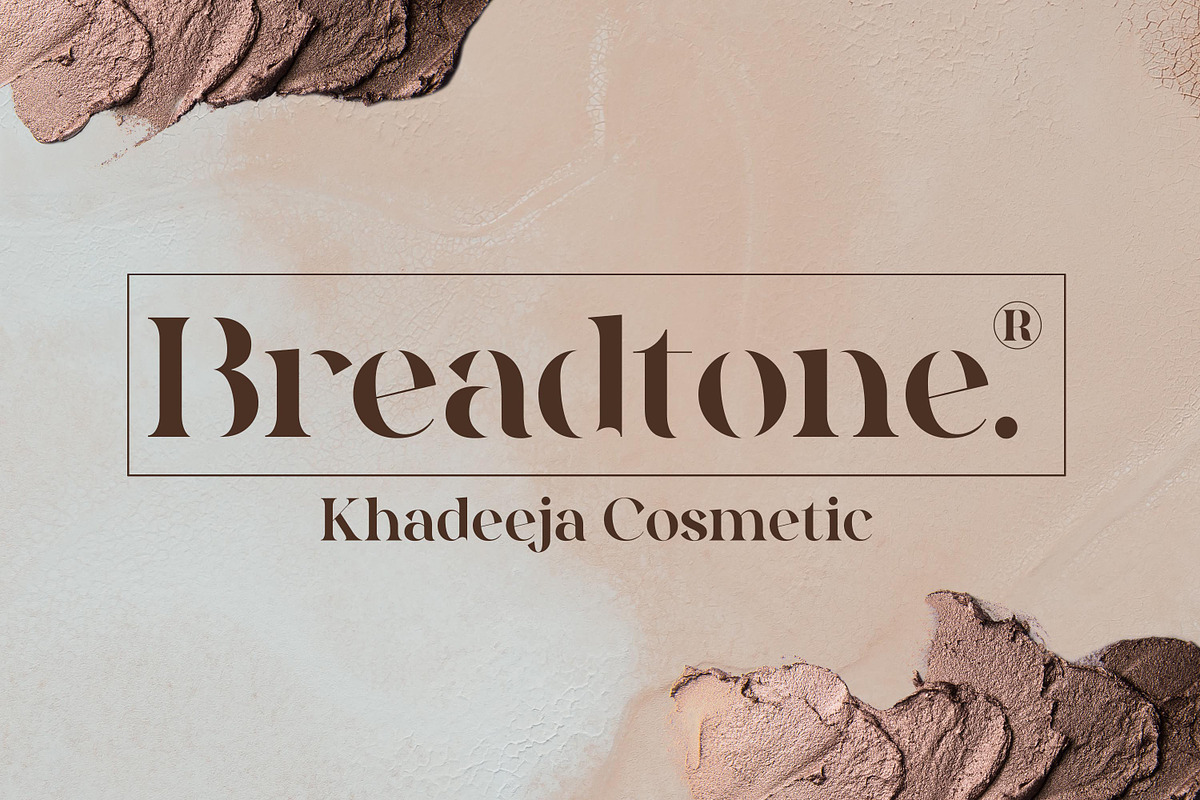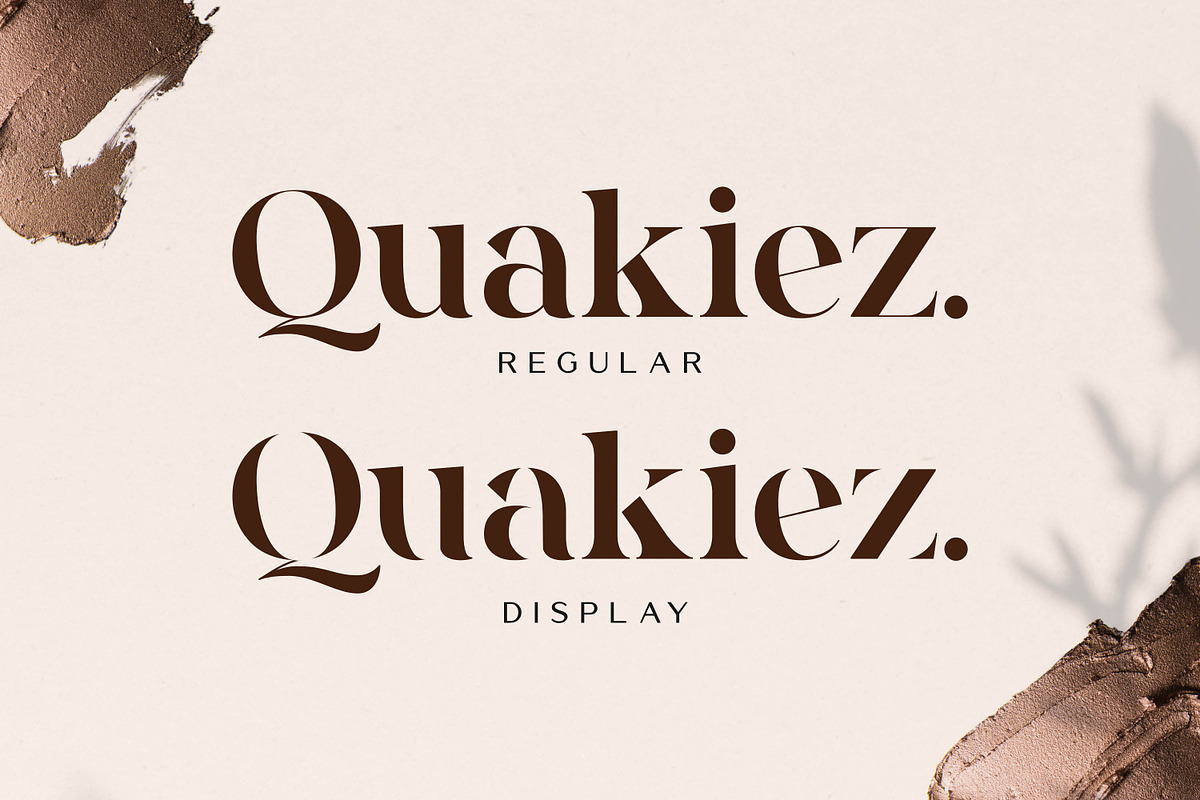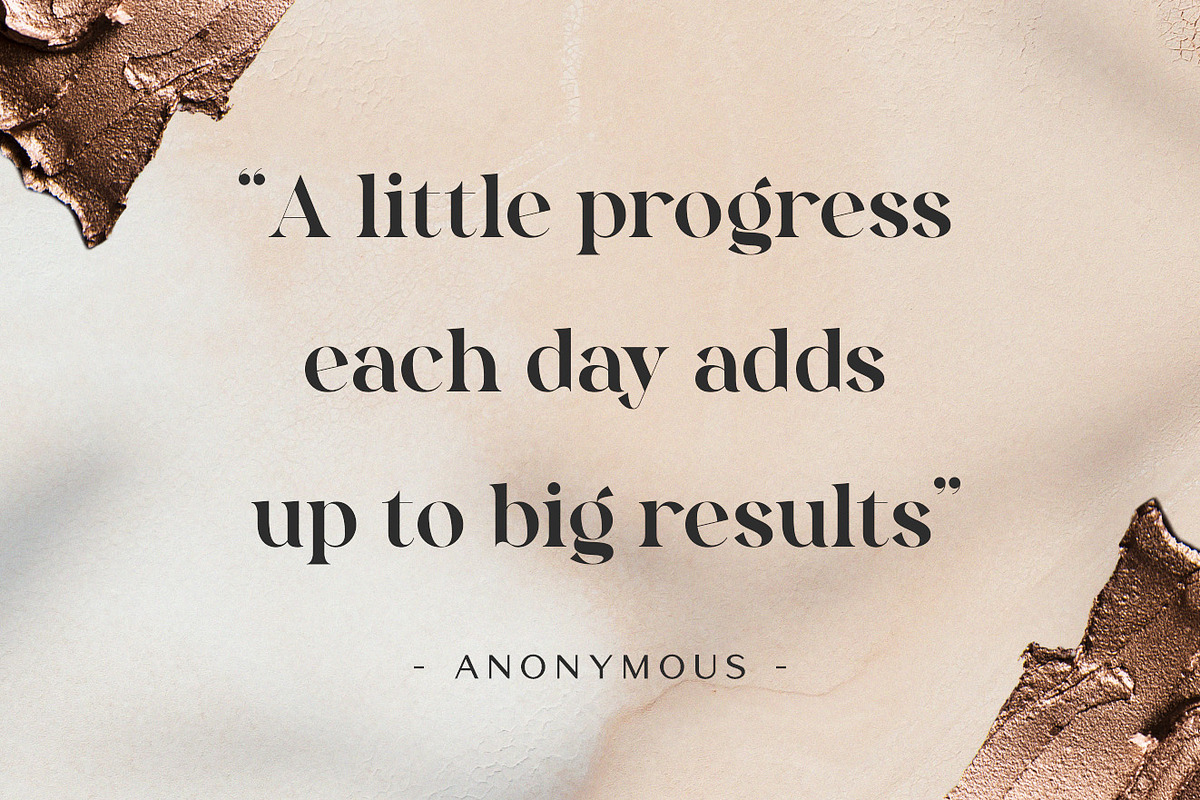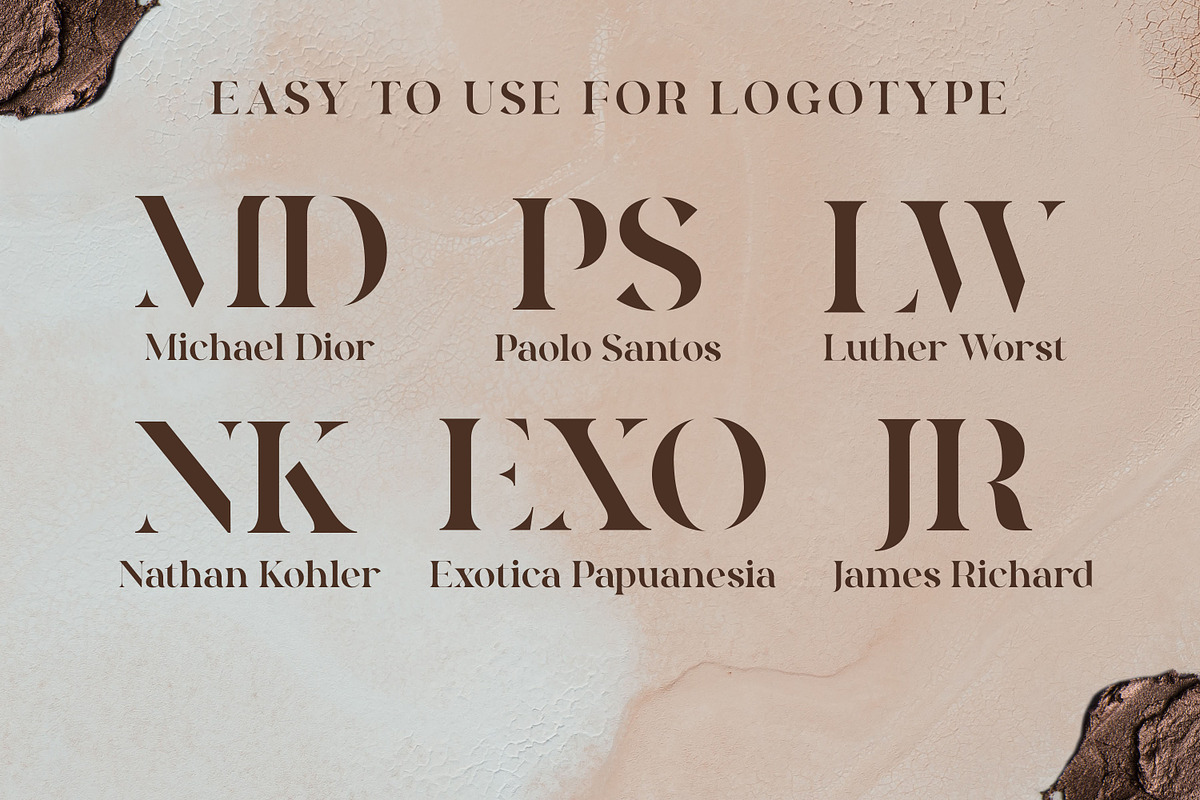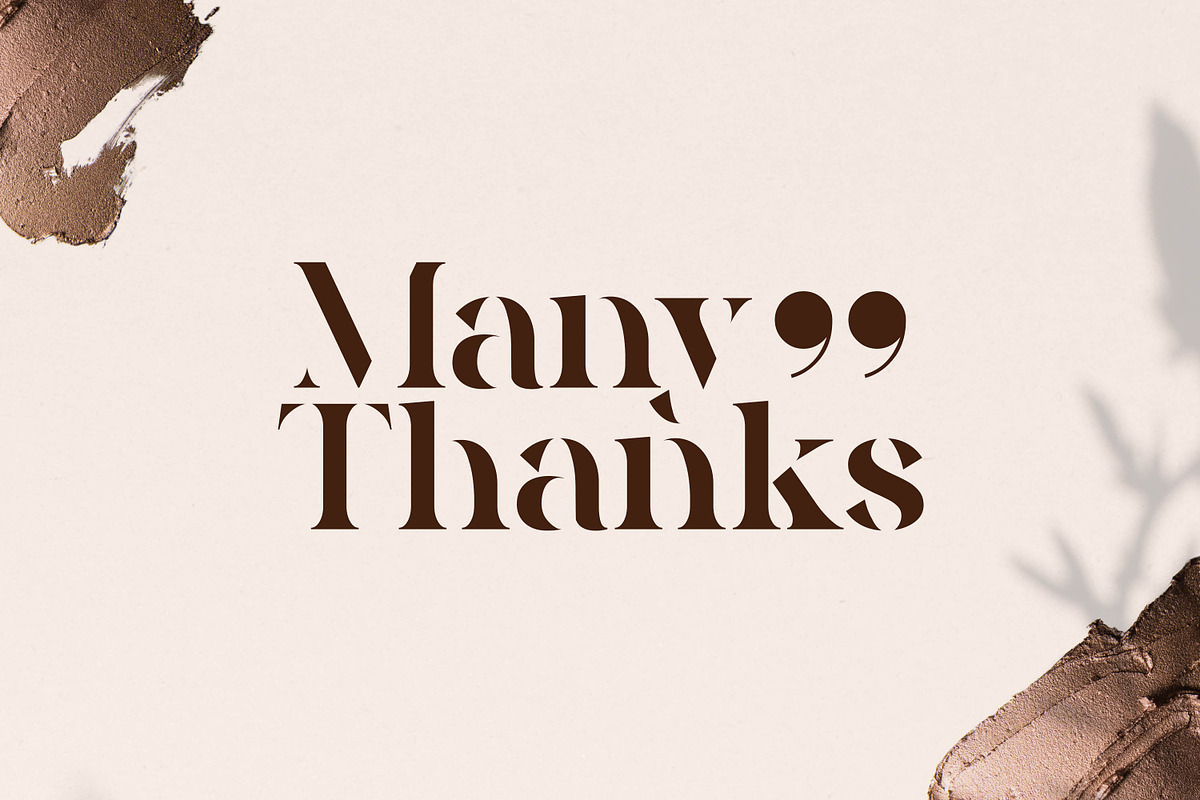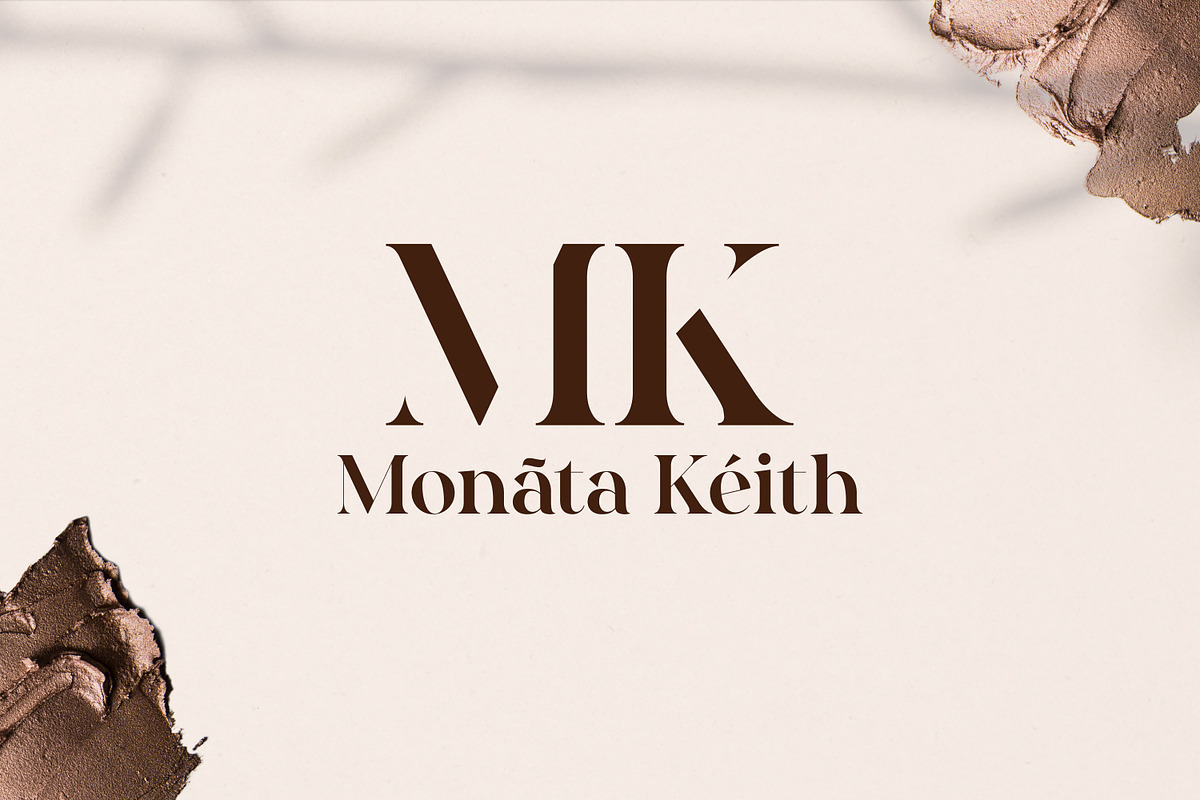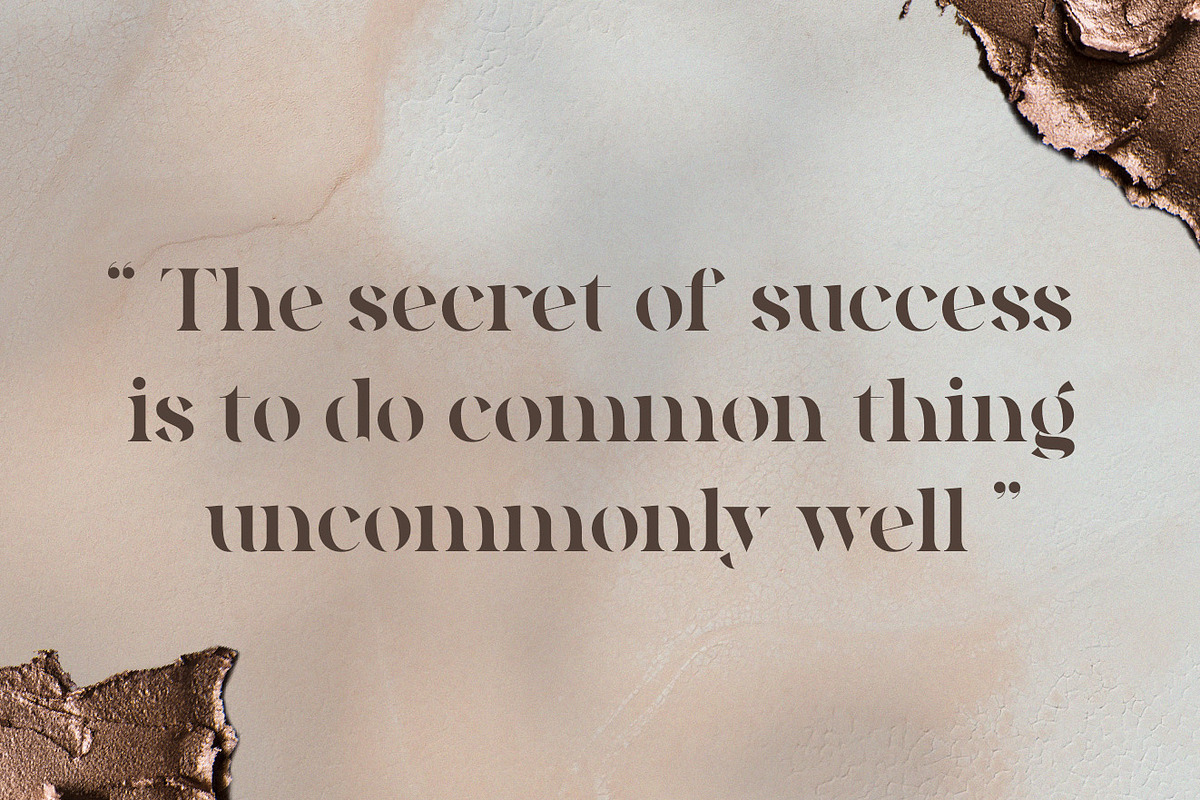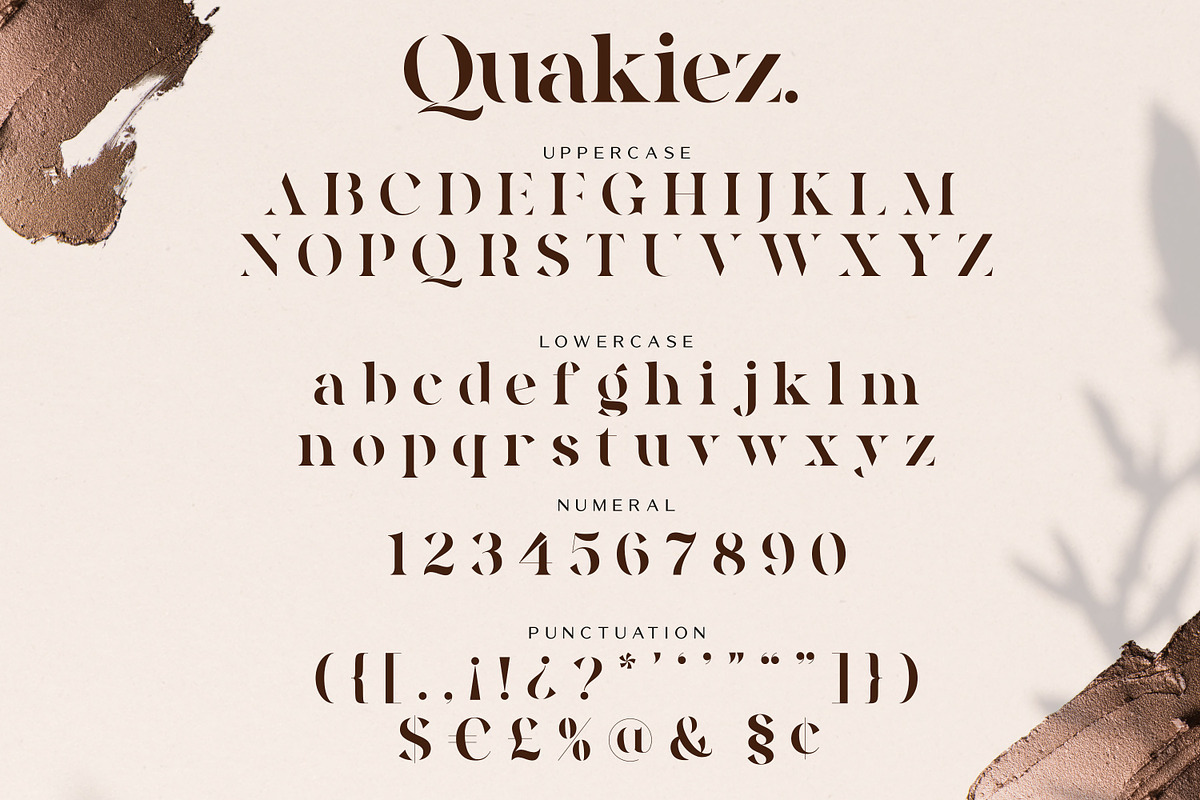
Sale! Quakiez - Luxury Modern Serif
Introducing Quakiez - Luxury Moder Serif a modern serif font with a stylish touch inspired by the famous minimalist logo and Quakiez has 2 regular and display styles is perfect for the purposes of designing templates, brochures, videos, advertising branding, logos and more.